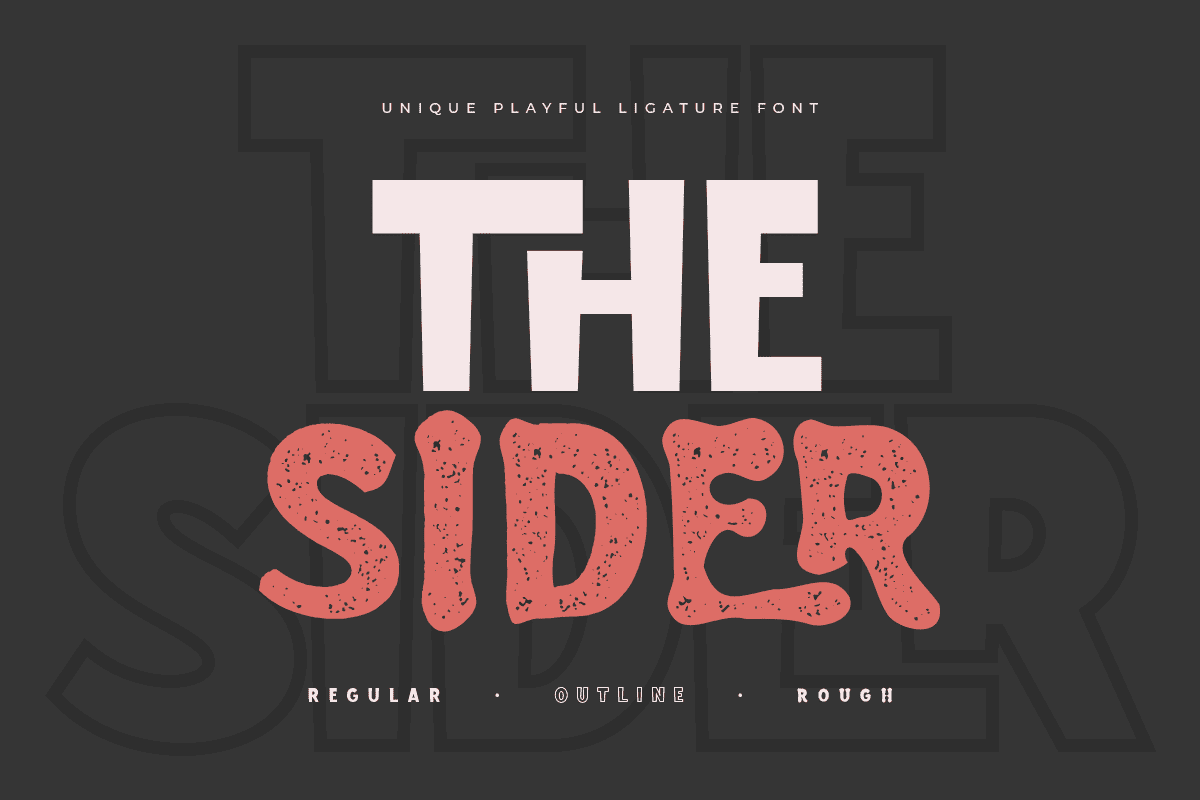
The Sider
-Unique Playful Ligature Font
The Sider is A Modern Playful and Unique Ligature Font. This font specially crafted for your design projects such as urban poster, unique design, modern for t-shirt designs, product packaging, merchandise, and so many more with easy to use but unique results are so playful.
Enjoy to Design any your needs with unique, urban, and playful feel.